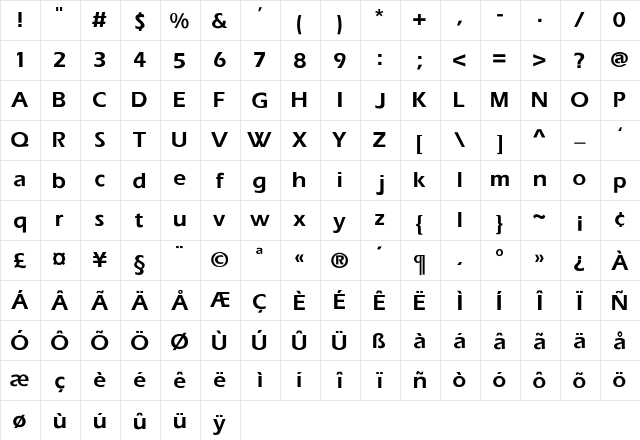
Eras-Black-SemiBold Regular
Design Context for Eras-Black-SemiBold Typeface
Eras-Black-SemiBold is a composed and adaptable typeface that performs quietly and consistently across a wide range of design contexts. Its bold stroke weight gives it real presence on the page.